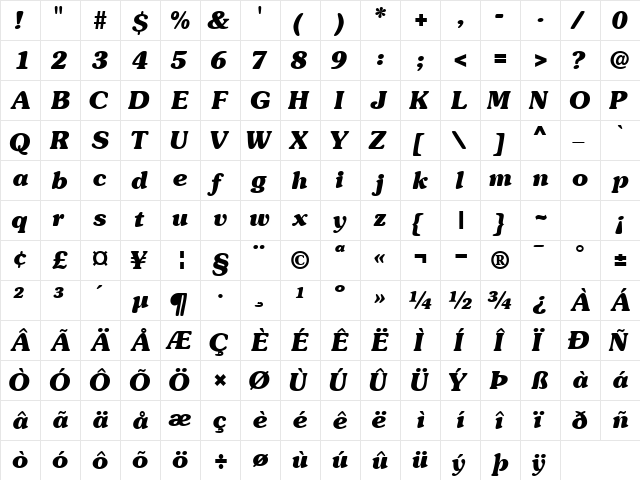
SouvenirBlackSSK Italic
Design Context for SouvenirBlackSSK Typeface
SouvenirBlackSSK takes a measured approach to typography — its balanced proportions and neutral character make it a reliable workhorse for both digital and print work. Its italic angle brings a sense of urgency and motion to the letterforms.
Pro Tip: Try SouvenirBlackSSK for annotation and caption copy alongside an upright companion — the contrast in angle creates a dynamic but ordered typographic system.